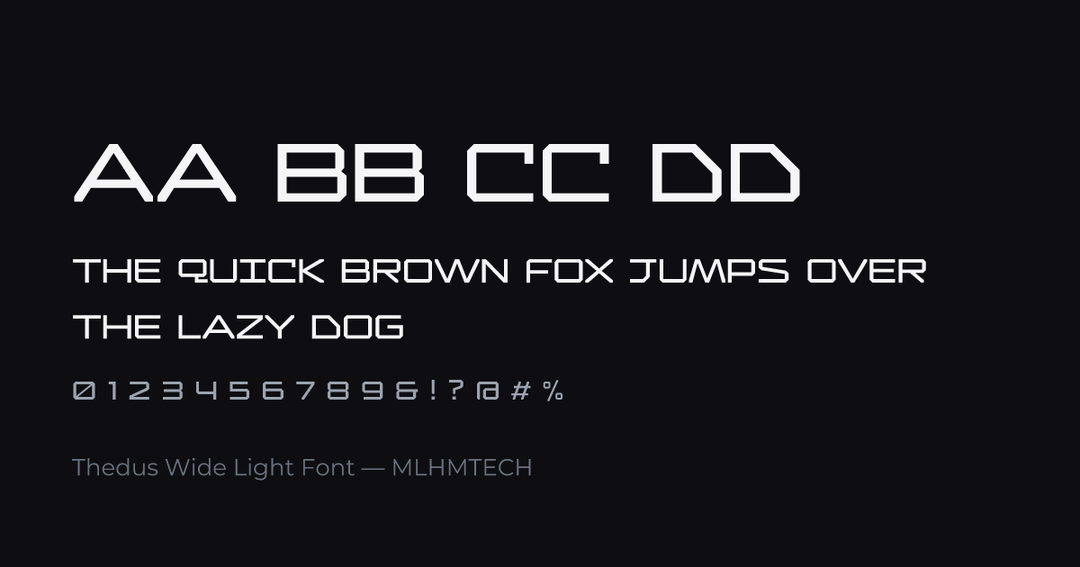
Thedus Wide Light Font
Thedus Wide Light is a contemporary wide sans-serif font that brings a clean, airy elegance to your designs. Ideal for headlines, logos, and branding projects.
Thedus Wide Light is a contemporary wide sans-serif font that brings a clean, airy elegance to your designs. Its extended letterforms and light weight create a sophisticated, modern look that stands out in headlines, logos, and branding materials.
Whether you're designing a website, poster, or social media graphic, Thedus Wide Light adds a touch of refinement. Its versatility makes it suitable for both print and digital projects.